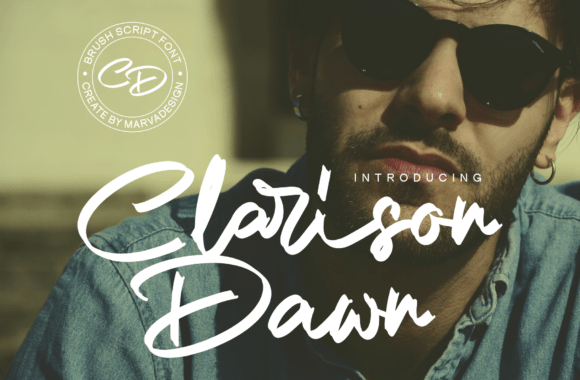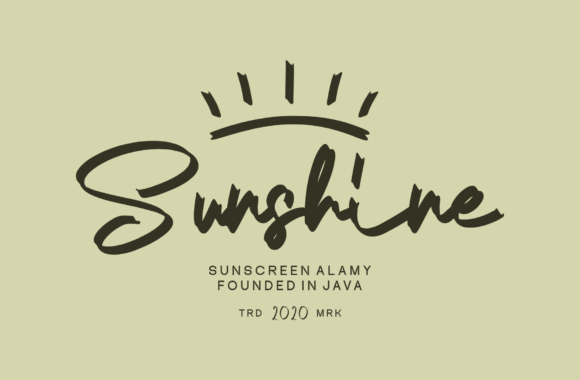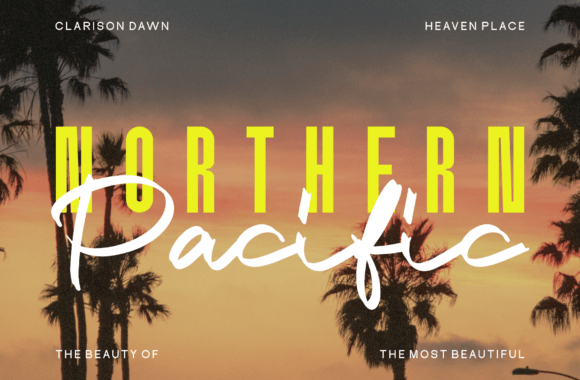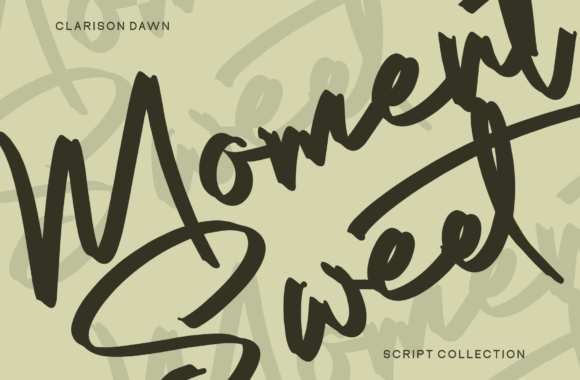
Clarison Dawn Font
About the Clarison Dawn Font
Add a touch of class to your work with the Clarison Dawn Font, a truly exceptional typeface. Clarison Dawn is a brush script font characterized by its expressive, hand-painted style that mimics natural brush strokes. This font exudes a sense of casual elegance, creativity, and personality, making it ideal for branding, social media graphics, poster designs, and fashion-forward visual identities.
Clarison Dawn Font Usage Examples
Clarison Dawn Font Example